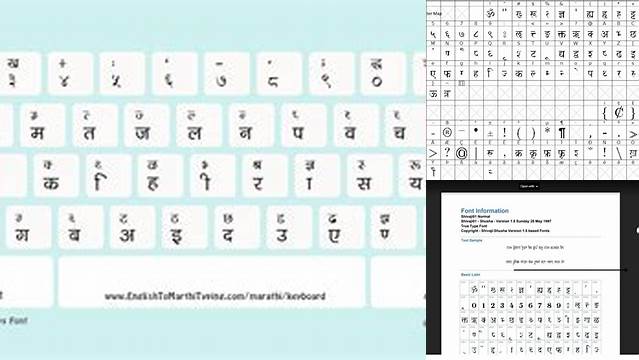
1. What is the Shivaji Font and Why Use It?
Hey guys, before we get into the nitty-gritty of downloading, let's talk about what makes the Shivaji font so special. The Shivaji font is a unique typeface primarily used for writing in the Marathi language. It's a direct representation of the Devanagari script, which is the writing system for Marathi. But it's not just about writing; it's about connecting with culture. Using the Shivaji font allows you to express yourself in a way that truly reflects your heritage and cultural identity. Think of it as a digital handshake to your Marathi roots!
When you use the Shivaji font, you're not just typing letters; you're participating in a tradition, a history, a legacy. It's like adding a vibrant splash of color to your digital world. This font is designed to be easily readable and aesthetically pleasing. Its intricate curves and distinctive character shapes make your Marathi text stand out. Whether you're composing emails, writing documents, or creating social media posts, the Shivaji font adds a layer of authenticity and personality that other fonts just can't match. Moreover, this font is a bridge between the past and the present, making it easy to continue writing in the Marathi language for the future. For many Marathi speakers, the Shivaji font isn't just a font; it's a connection to their family, their community, and their history. It's a way of keeping the language alive and ensuring that future generations can appreciate the beauty and richness of Marathi. Using the Shivaji font can also give you a sense of pride. It's a badge of honor, a statement that you value your heritage and are proud to share it with the world. It's about embracing your identity and expressing yourself authentically, whether you're writing personal messages, professional communications, or creative projects.